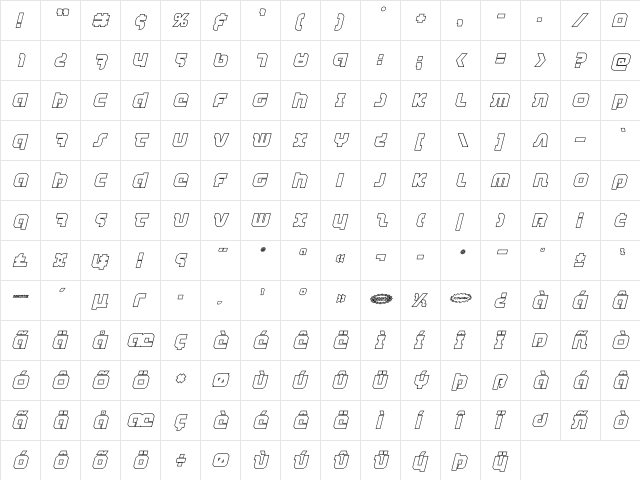
Combat Droid Outline Italic Outline Italic
Design Context for Combat Droid Outline Italic Typeface
Combat Droid Outline Italic has the no-nonsense character of military stencilling and tactical signage, projecting authority and directness. The slanted form adds forward momentum and visual energy.
A strong choice for security brands, outdoor gear, and high-stakes visual communication.
Font Pairing: Use alongside a condensed or geometric sans for supporting copy — keep the pairing bold, functional, and free of ornament.
Pro Tip: Try Combat Droid Outline Italic in all-caps for the most authentic military signage feel. It pairs well with stark, minimal layouts and muted colour palettes.